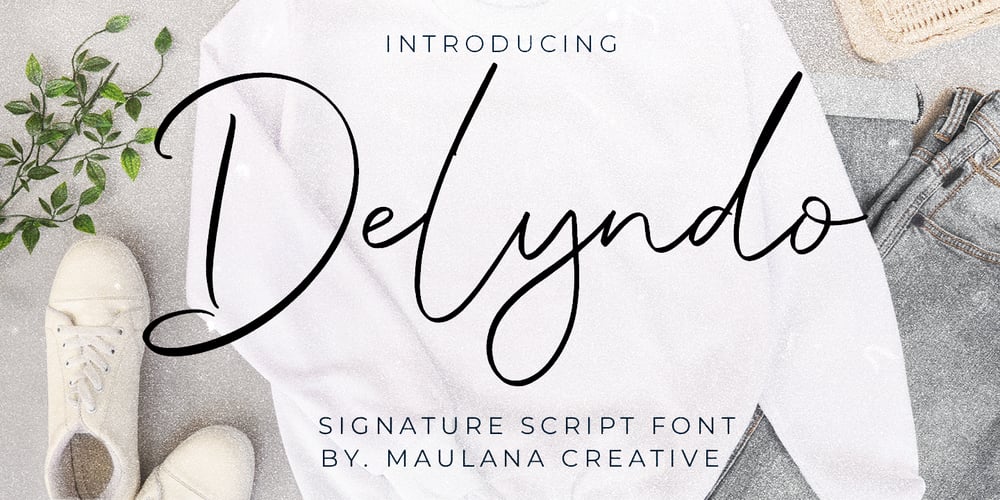
MC Delyndo Font Family was designed by Gilang Maulana and published by Maulana Creative. MC Delyndo contains 1 styles and family package options. Delyndo signature script handmade font. Monoline contrast stroke, fun character with a bit of ligatures and alternates. To give you an extra creative work. This font is good for logo design, Social media, Movie Titles, Books Titles, a short text even a long text letter and good for your secondary text font with script or serif. Make a stunning work with Delyndo font.Cheers,Maulana Creative